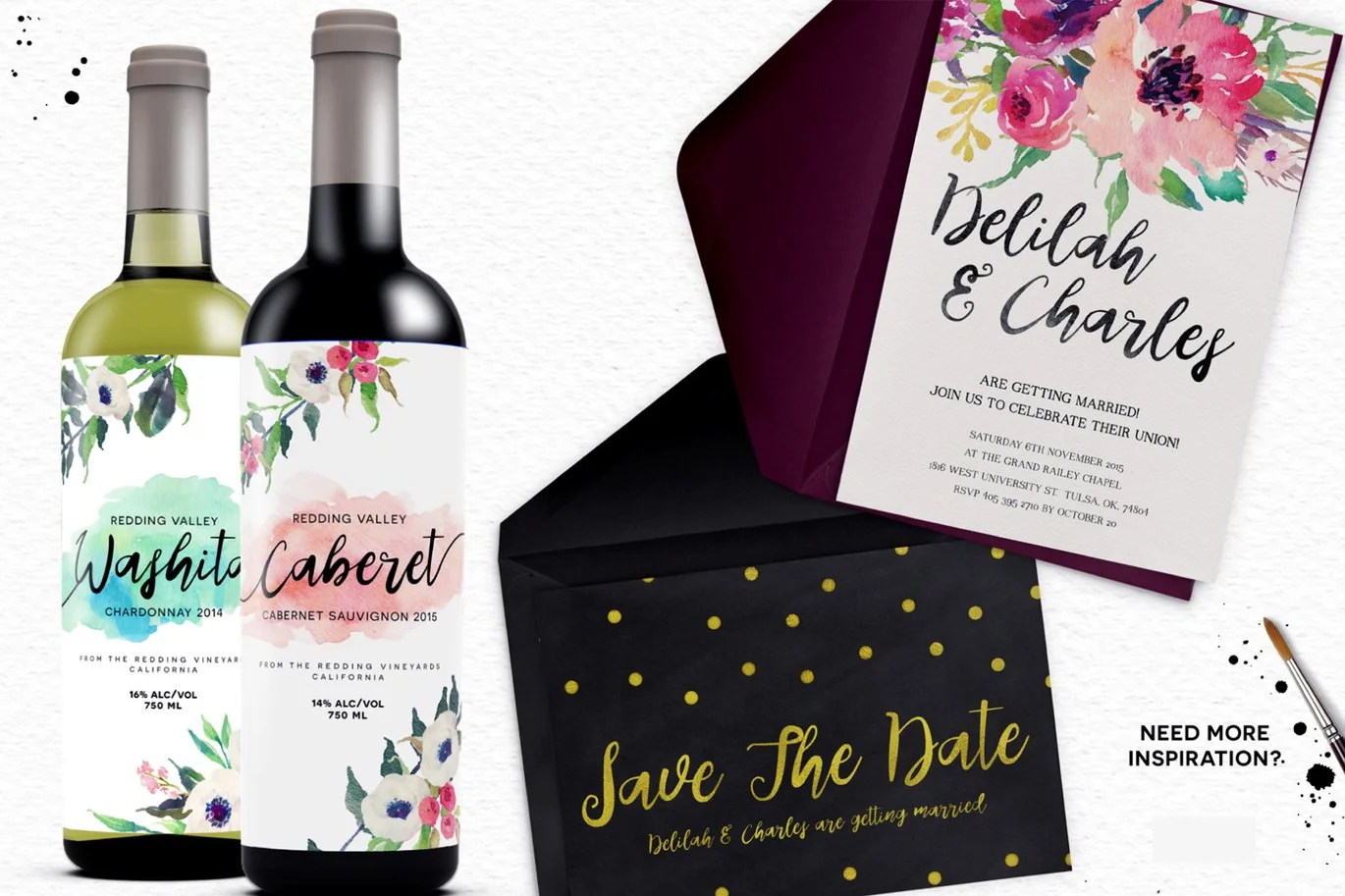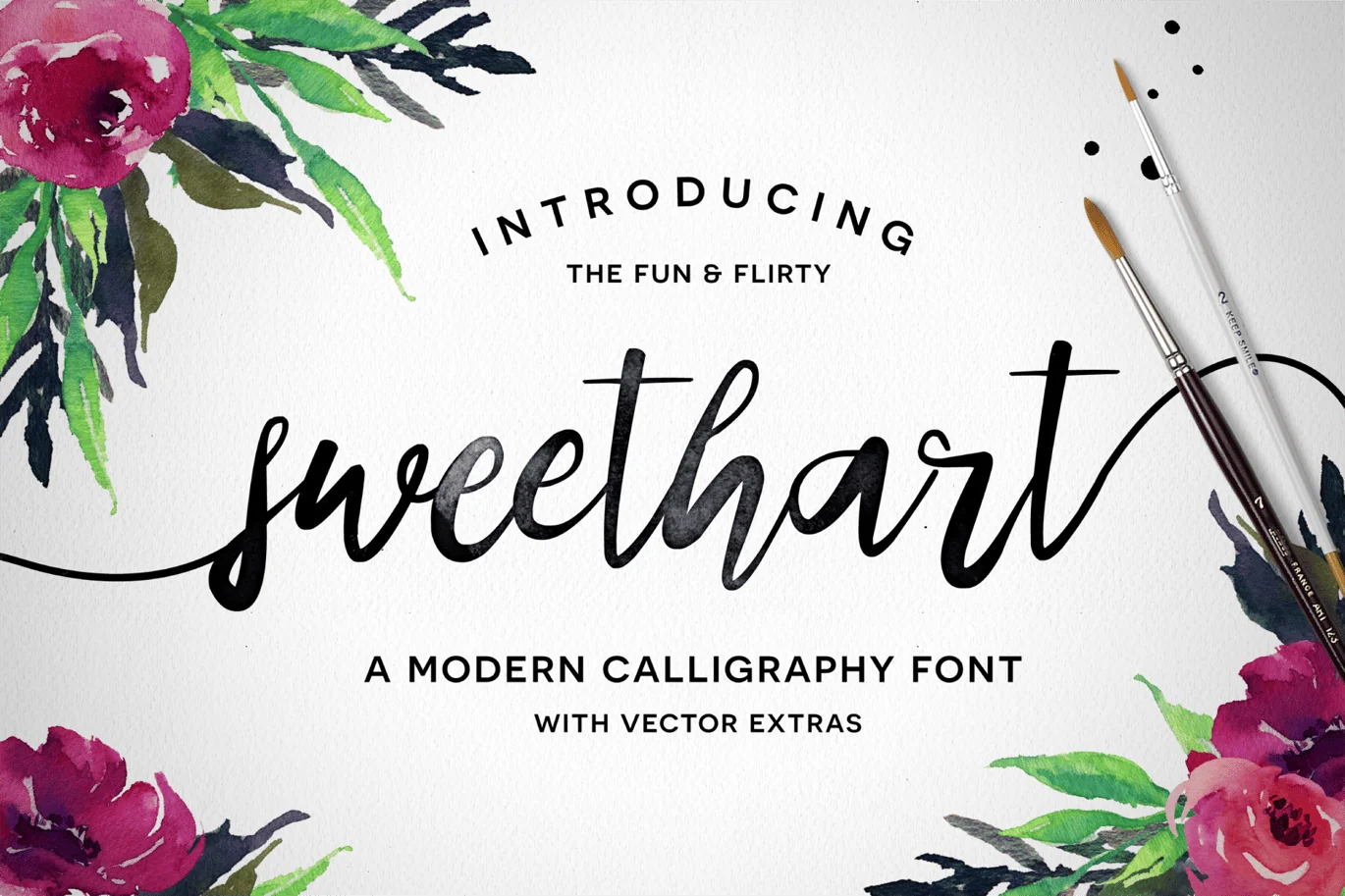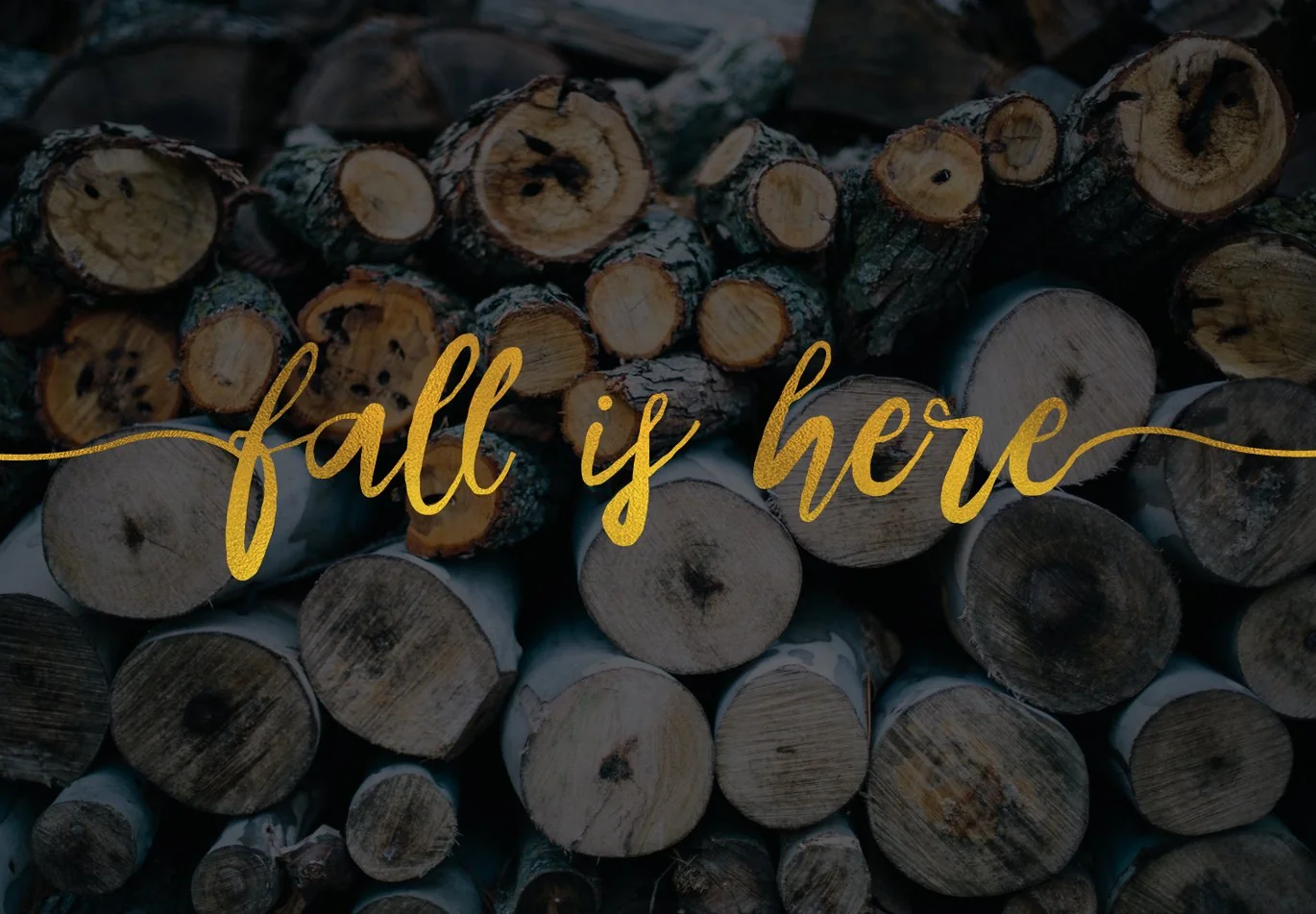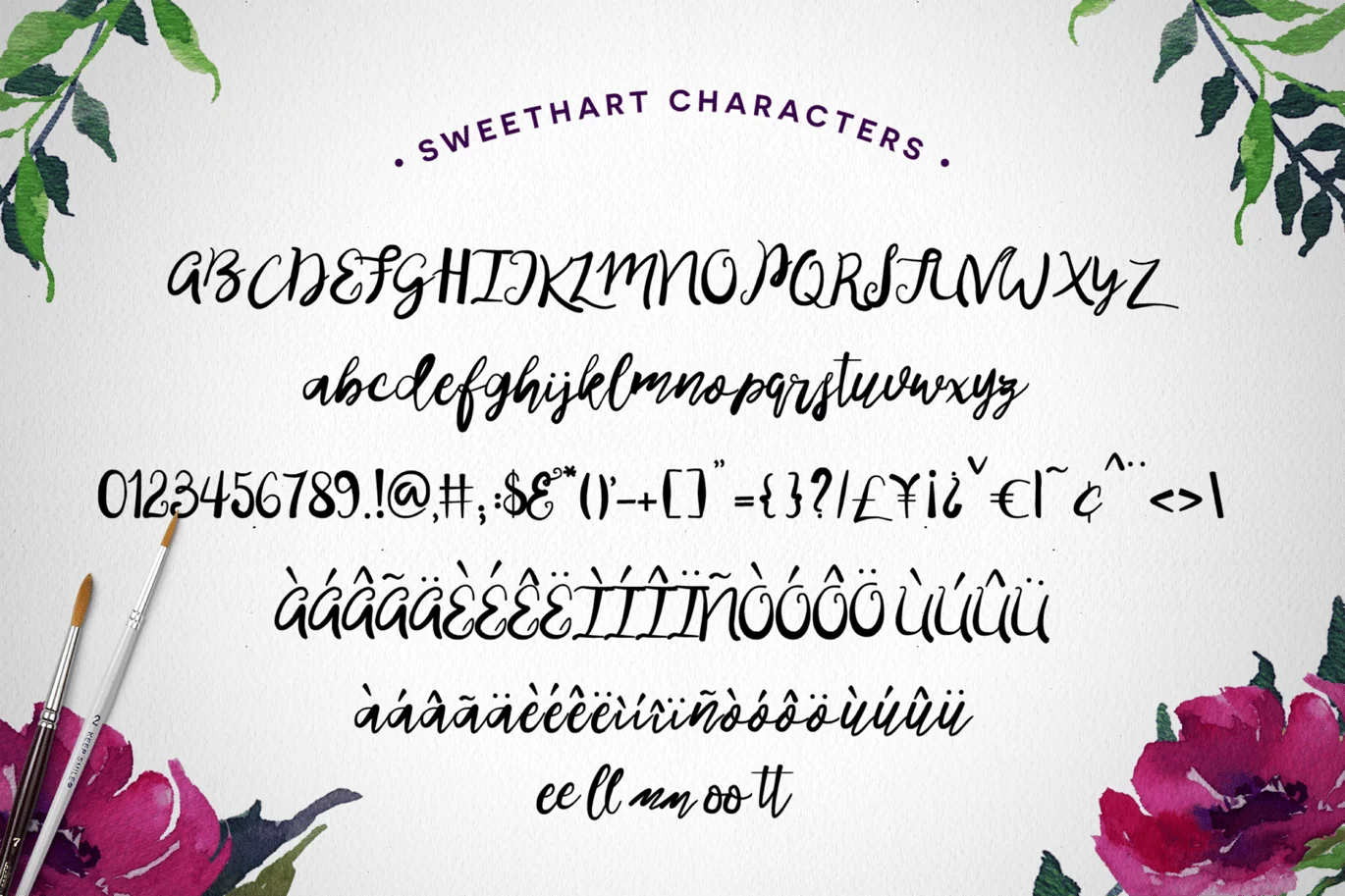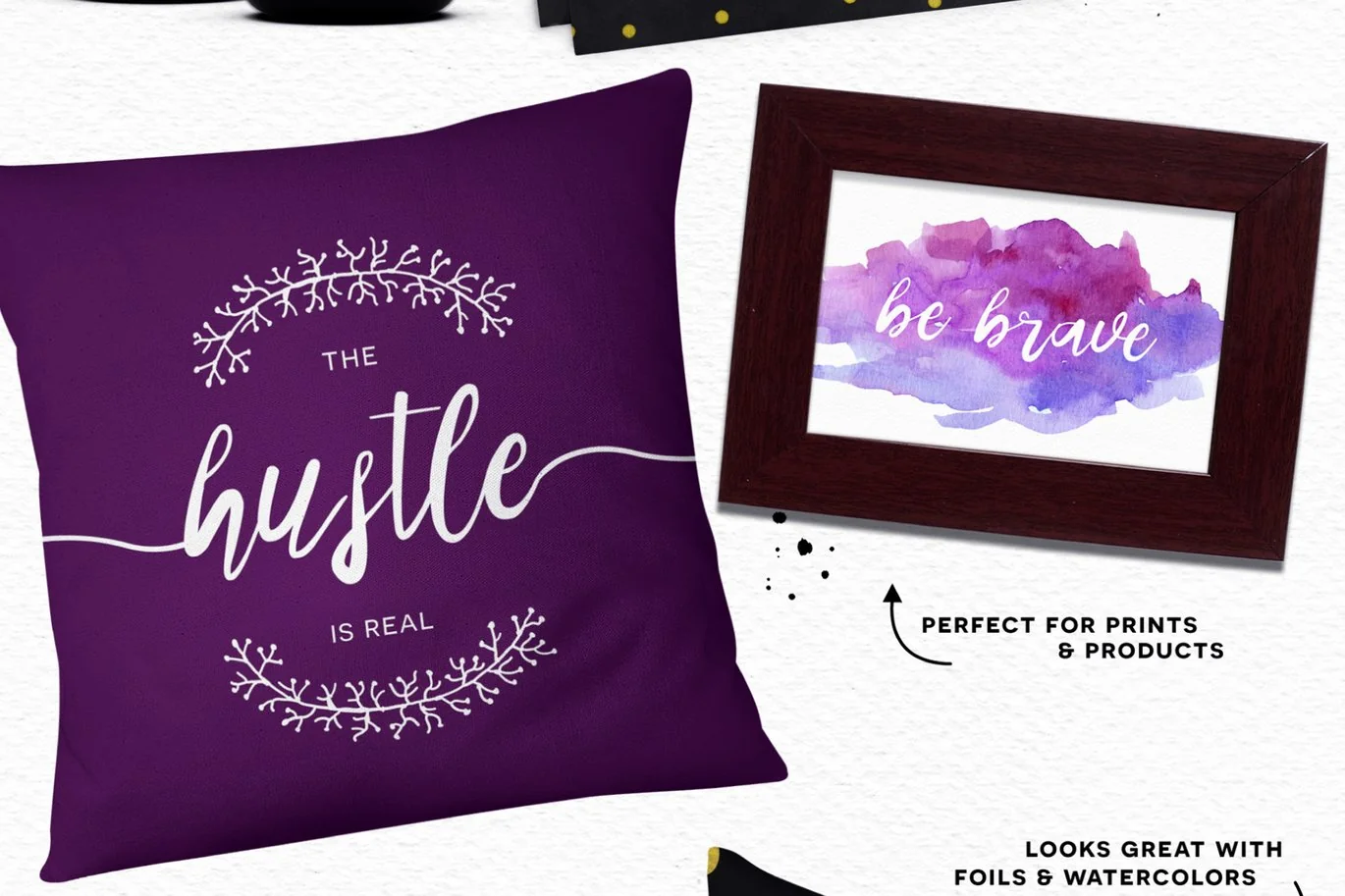
Sweethart Font
ABOUT SWEETHART ::::::::::::::::::::::::::::::::::::::::::::::::::::::::::::::::::::::::::
Sweethart is a fun & flirty script font with some rad bonuses! It’s fat-to-thin brush strokes and imperfect baseline give it a fun and stylish aesthetic perfect for typography, branding, logo design, invitations, and prints.
Use it in ink, watercolor, or gold foil based designs or on its own as a bold hand-painted masterpiece!
THE EXTRAS::::::::::::::::::::::::::::::::::::::::::::::::::::::::::::::::::::::::::::::::::::::::::
Wanting to make sure you had everything you needed to make your project complete with that handcrafted feel, I’ve included:
• 14 End Ornaments & Ligatures